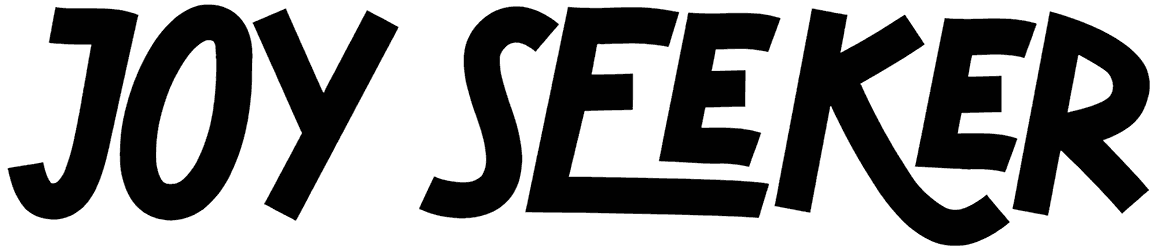
Black Knight Font
Are you looking for a creative cartoon font to design your program titles? Stay with us to offer you the best possible option. Here is the Black Knight Halloween font with a comic and playful design that can please any eye.
You can use this fancy bold font in any cartoon programs, titles, advertisements, animations, short stories, and more. Download this cute font right now and make your writing projects creative!